Antique Font Help, Please
I'm more of a photoshopper than illustrator, but I'm hoping that someone can help me identify a font.  Or how to pull off an affect.
Any idea how to pull off this "Farmall" look?
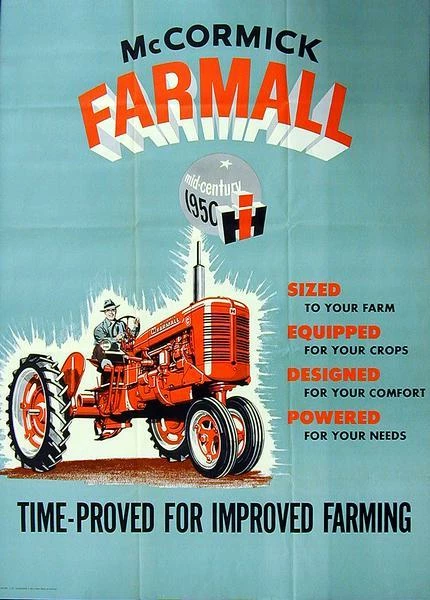
Here's one tutorial for that look, using Illustrator:
and, for very fancy:
Something like Trade Gothic BD CN 20 ought to do: